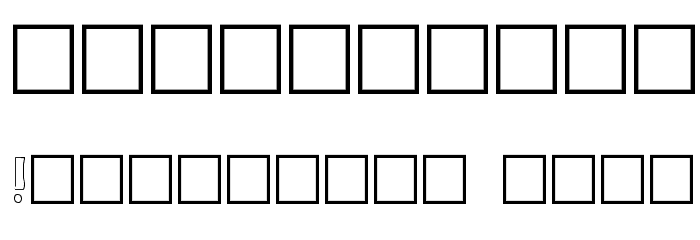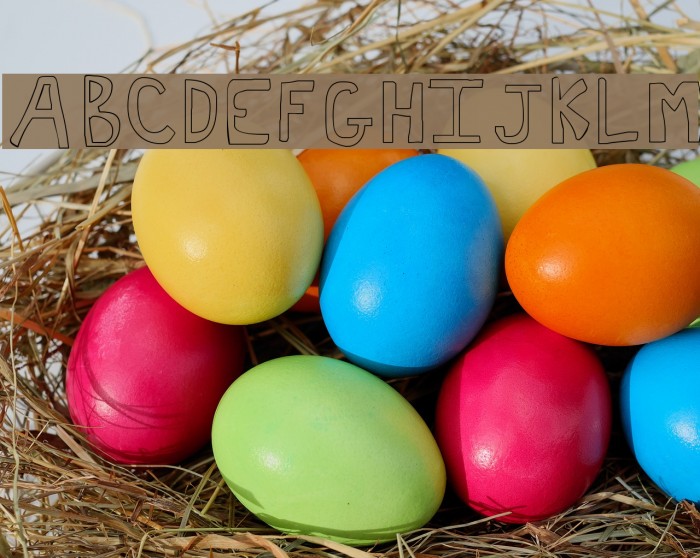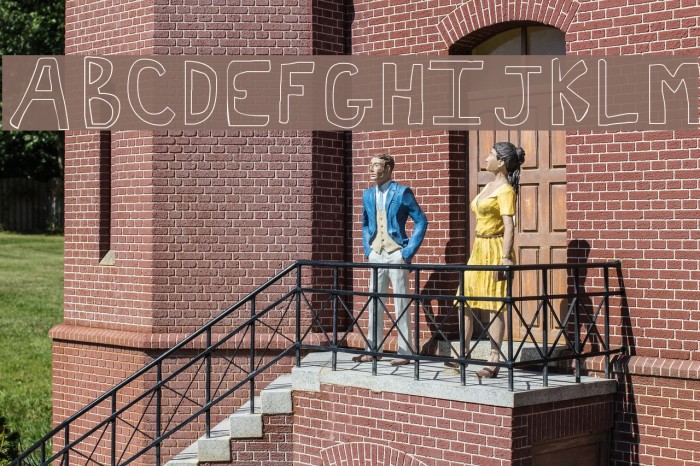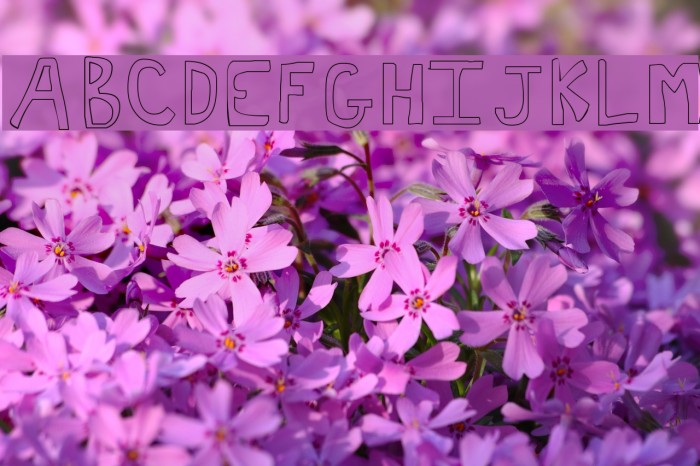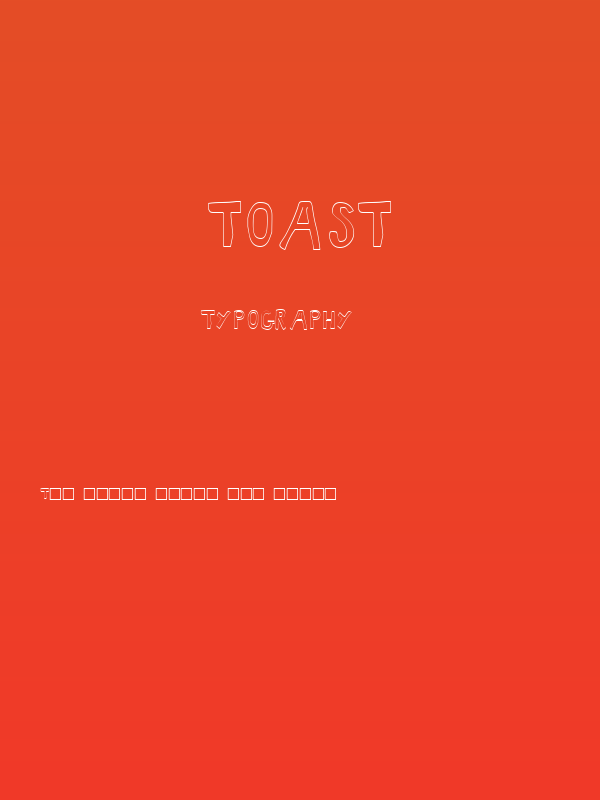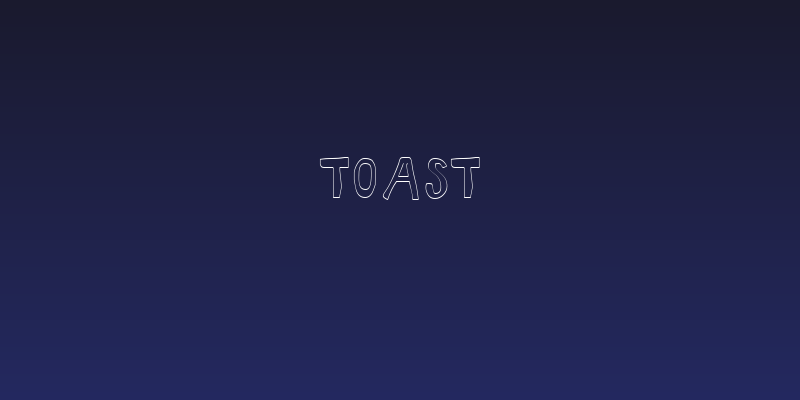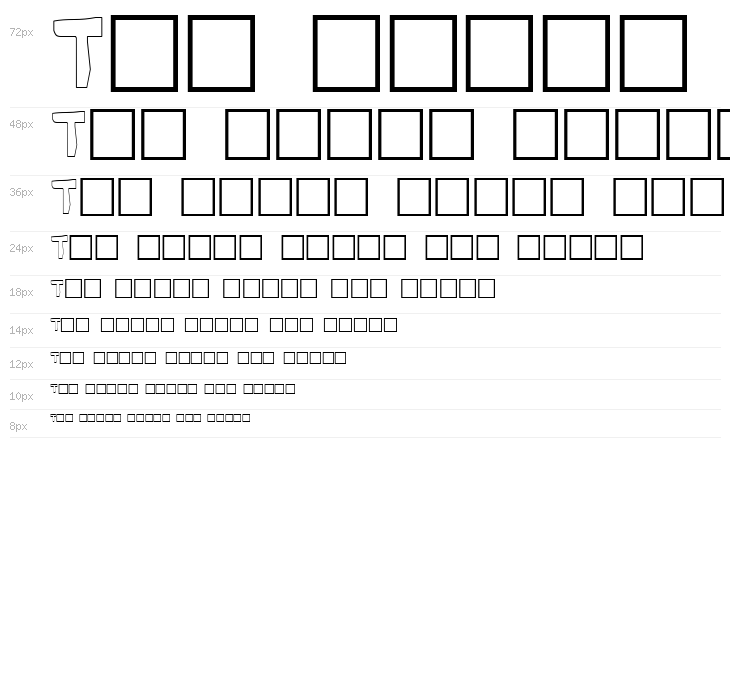
Toast Font
Toast Description
This font features a playful and informal style, characterized by its hand-drawn appearance. The uppercase letters have a whimsical, slightly uneven quality, giving them a casual and approachable feel. The strokes are consistent in width, contributing to a uniform look despite the irregular shapes. The font lacks lowercase letters, numbers, and most special characters, focusing primarily on the uppercase alphabet. Its design is reminiscent of doodles or sketches, making it ideal for creative and fun projects.
| Overall Style | Playful, Casual |
| Use Case | Headlines, Posters, Creative Branding |
| Proposed Projects | Ideal for children's books, playful posters, casual invitations, and creative branding. |